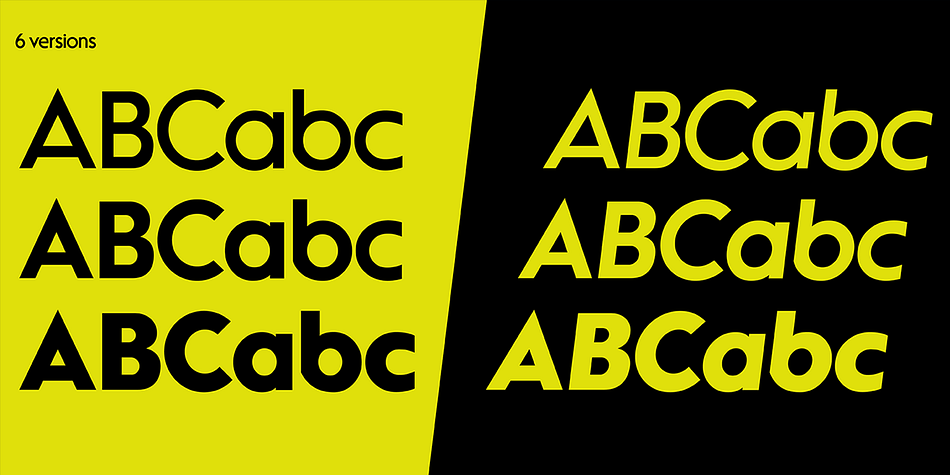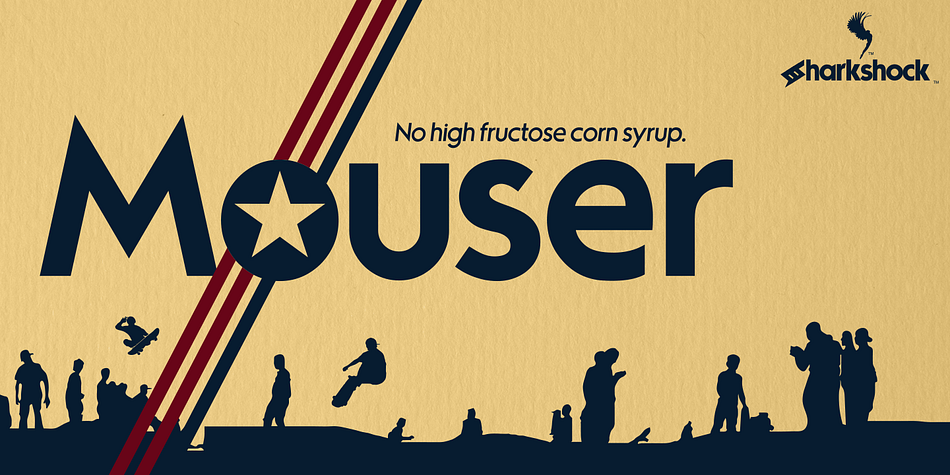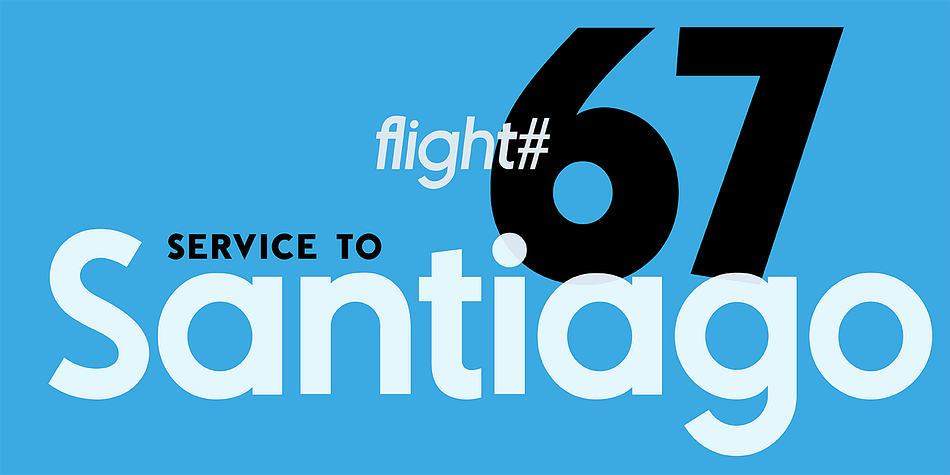
Mouser
Designed by Dennis Ludlow, Mouser is a sans serif font family. This typeface has six styles and was published by Sharkshock.
Mouser has been an ongoing project that originated as a geometric sans of the same name before morphing into a similar, but entirely different family called TypoGraphica. It retains much of its earlier character such as limited contrast, high legibility, and tight spacing. Major changes were made for a simplistic, more cohesive look. This was done to maximize its usefulness for body text while keeping characteristics used for display purposes. Slices to top strokes are much more subtle with styling dialed down to a minimum. This family comes in 6 different versions to meet a variety of needs.
Mouser is equipped with Basic and Extended Latin/diacritics, Cyrillic, kerning, ligatures, and fractions. Try it for website text, applications, or headlines.